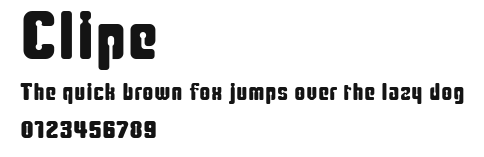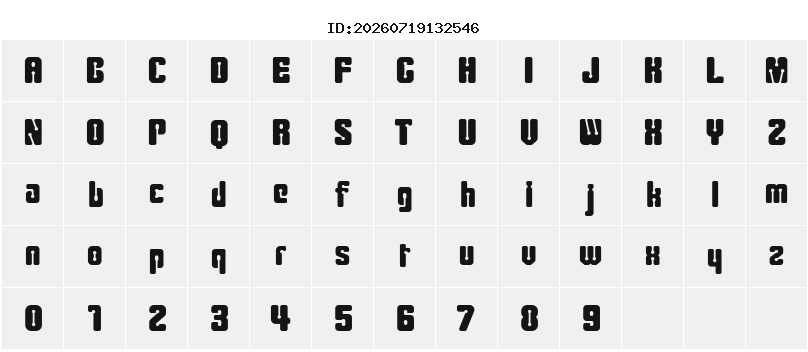
• Font Name: Clipe
About Clipe.ttf
Clipe.ttf is a modern, elegant sans-serif font designed for ultimate readability and visual harmony. Perfect for branding, headlines, web design, and print materials.